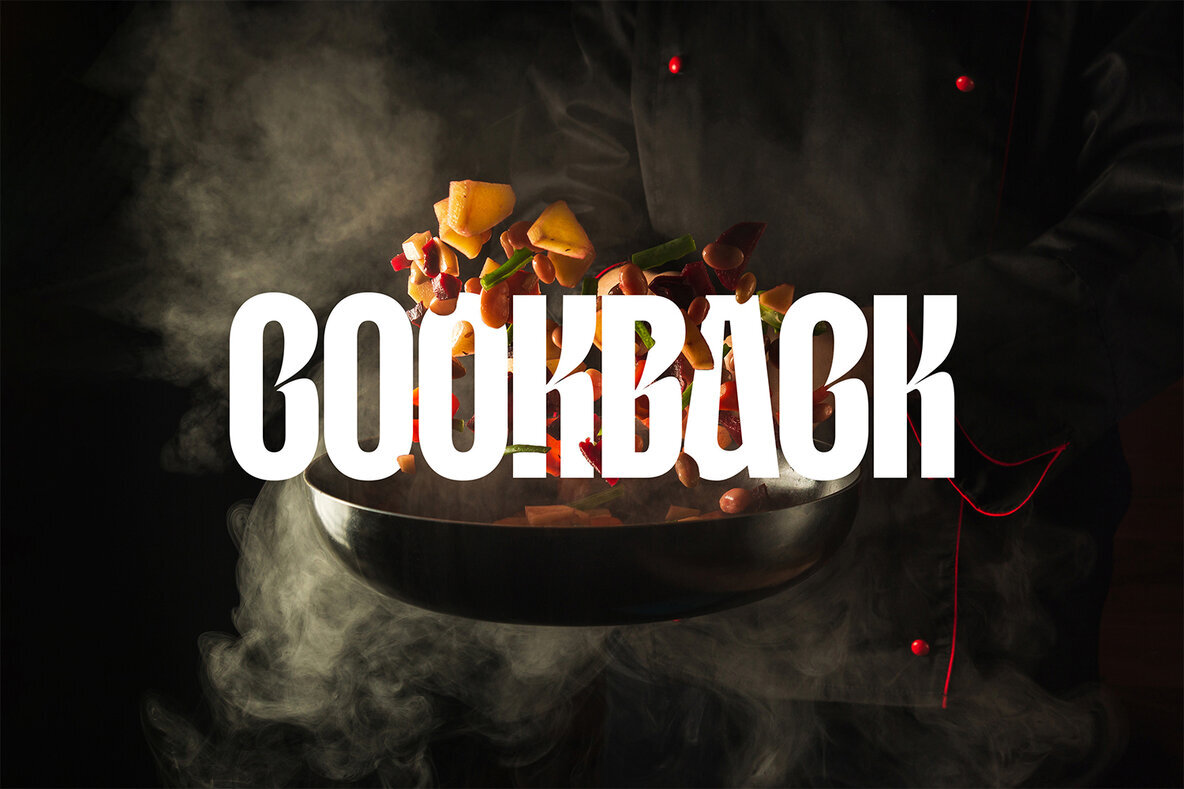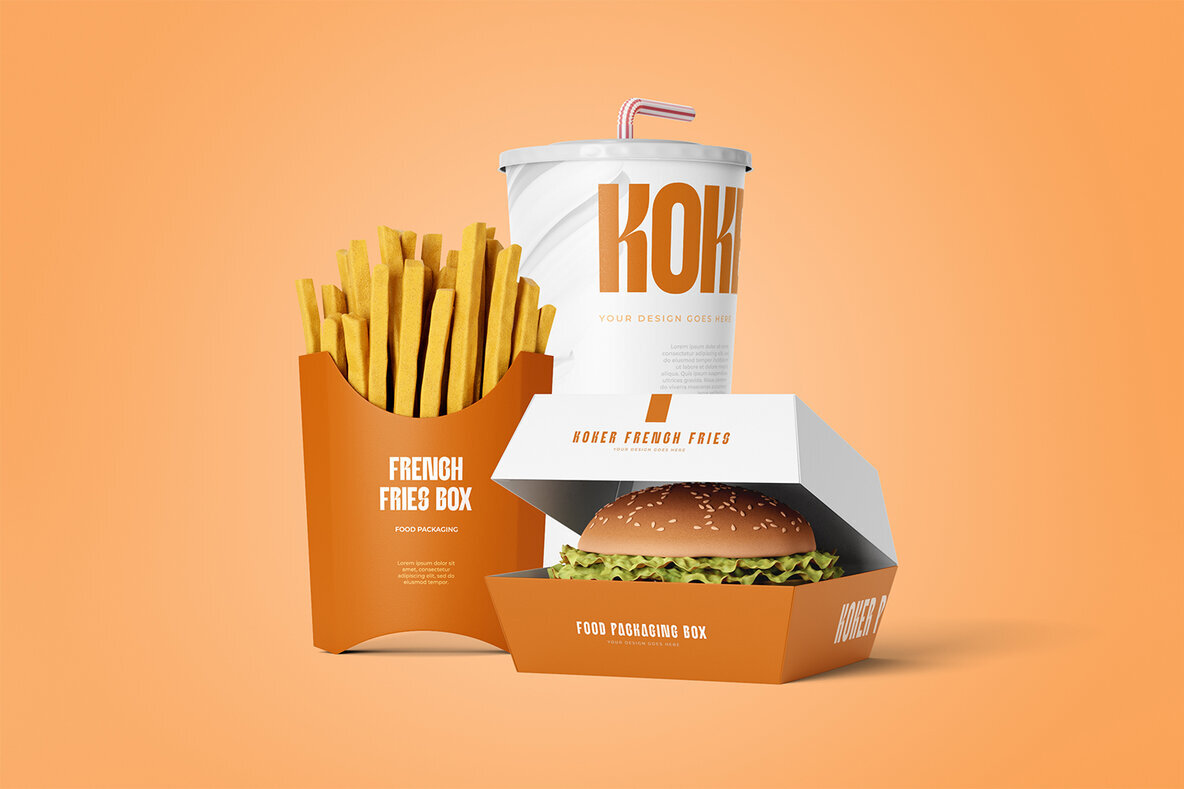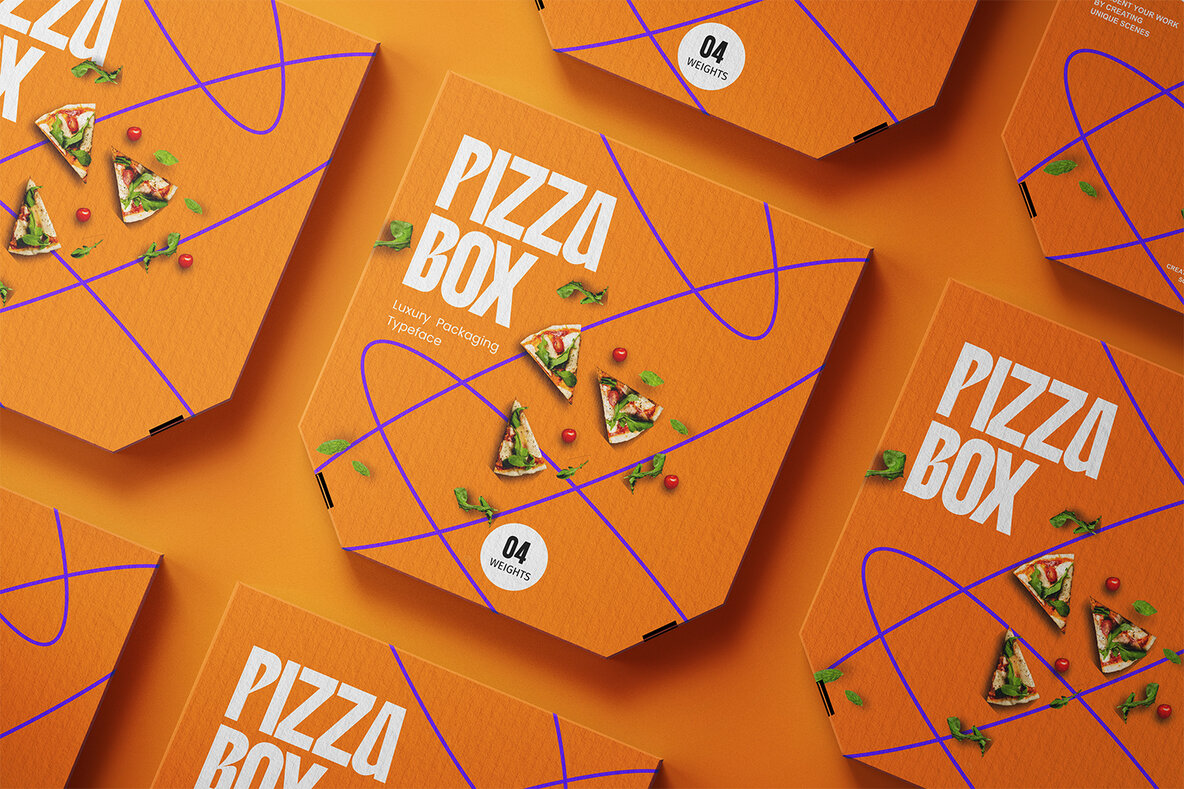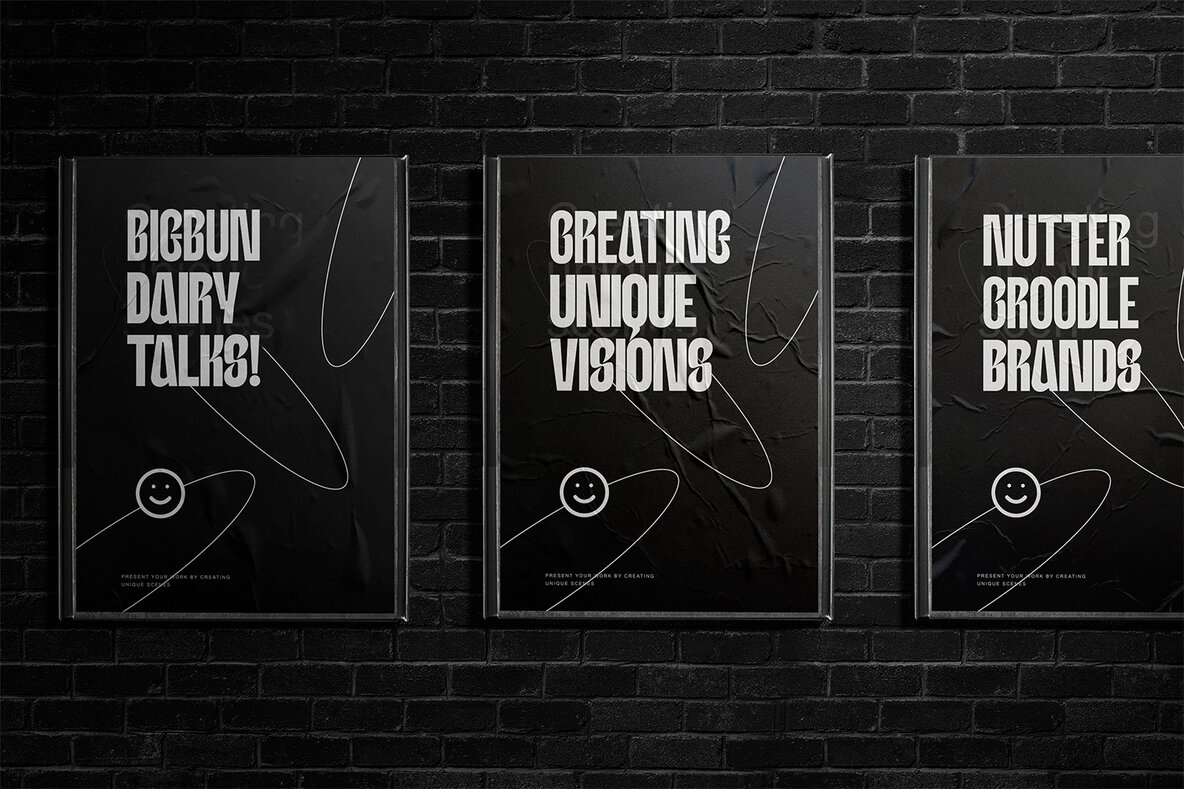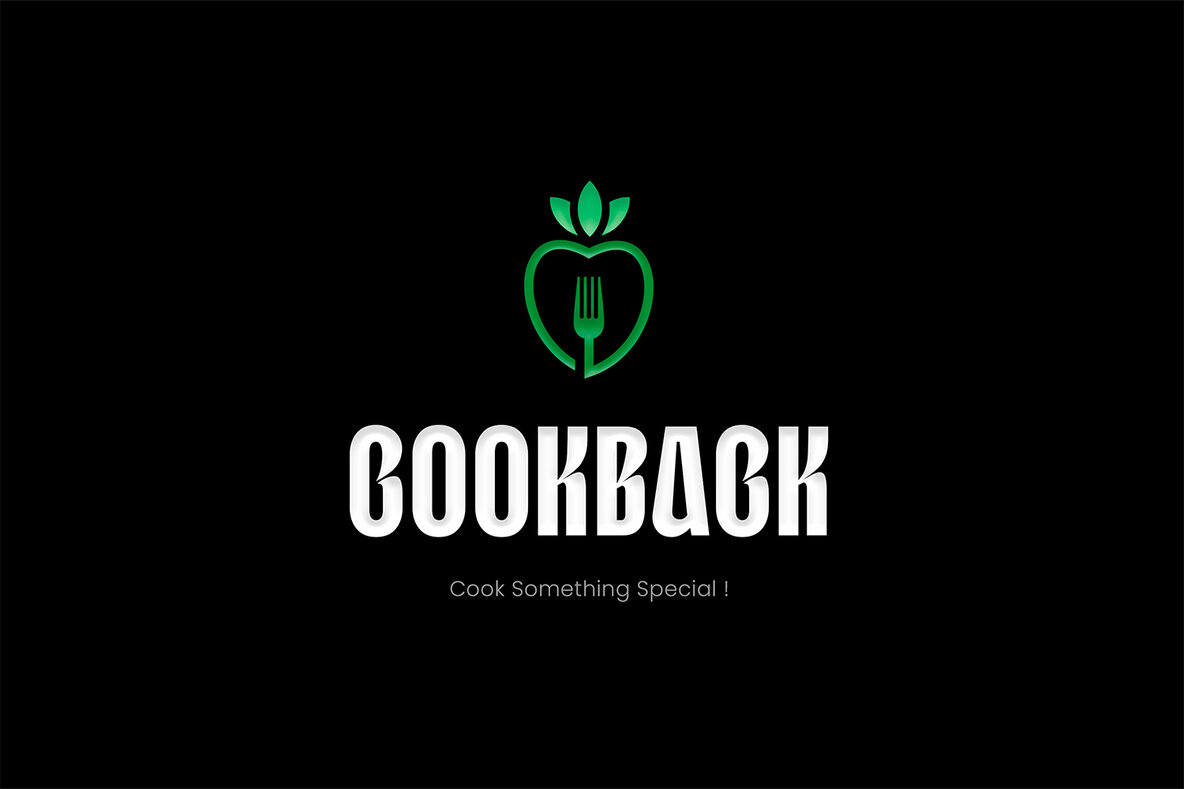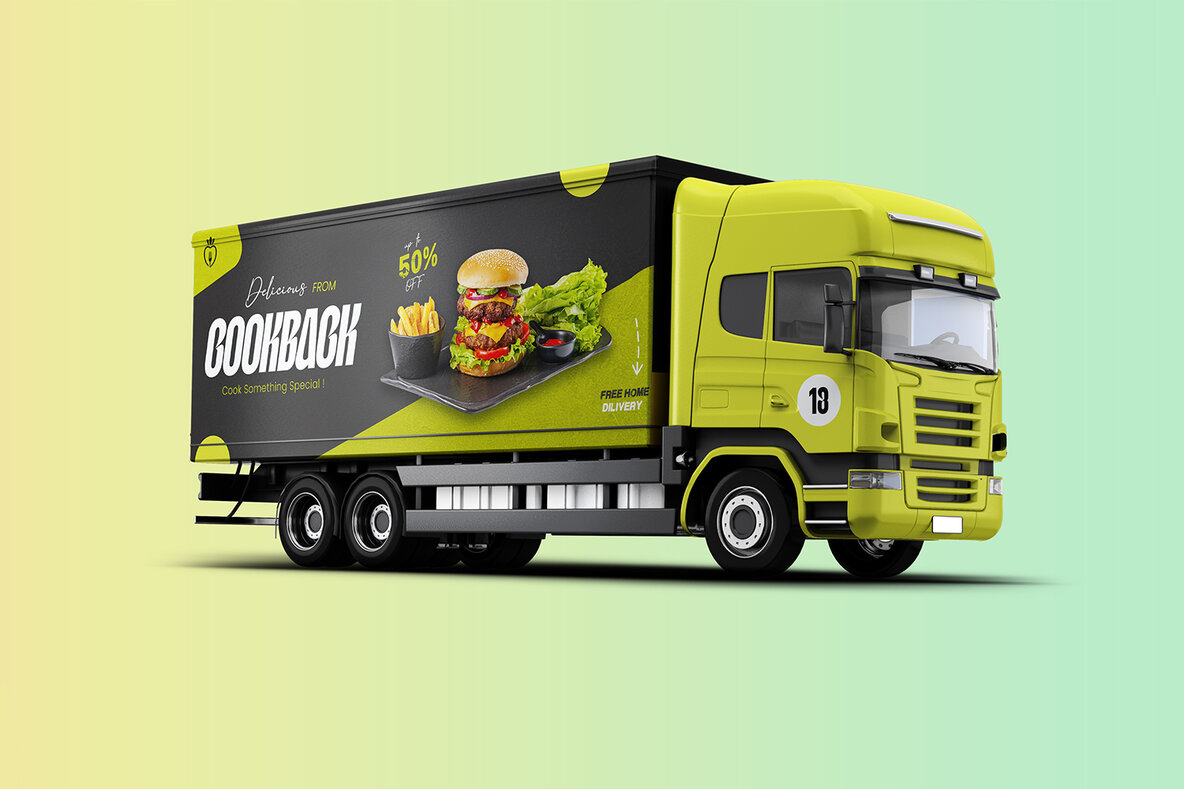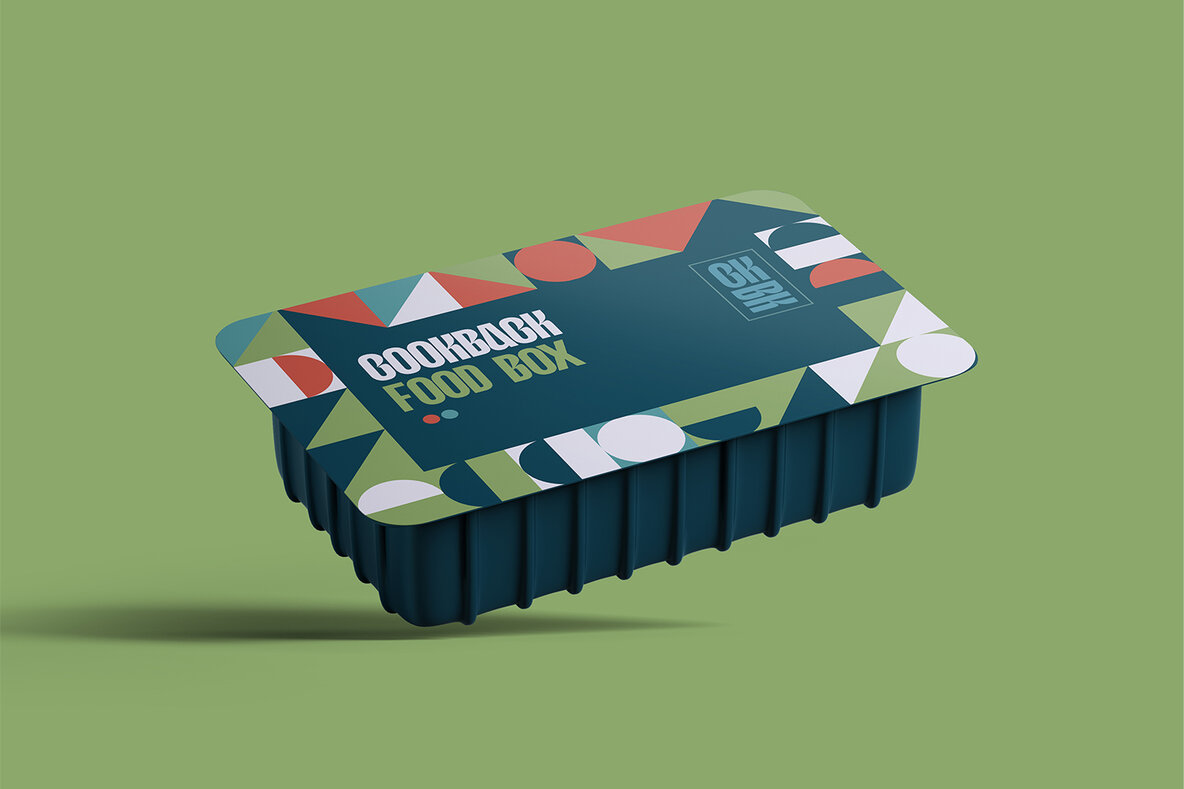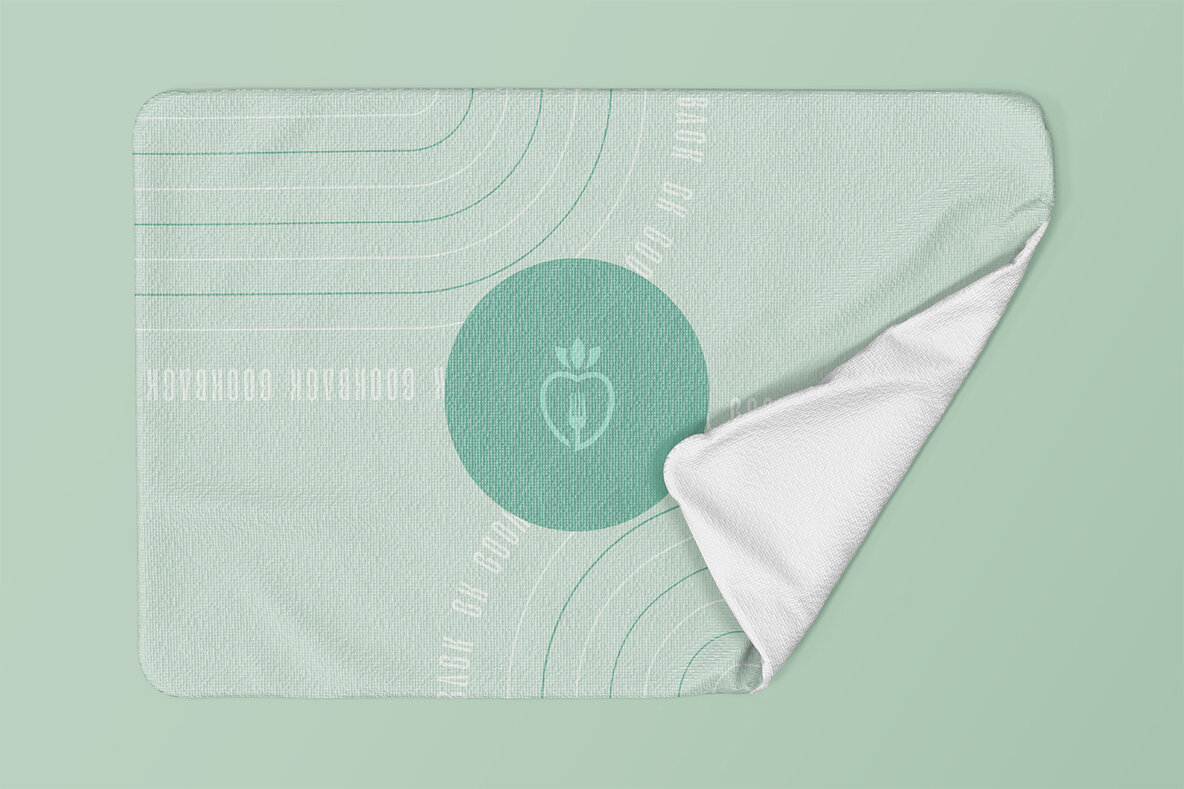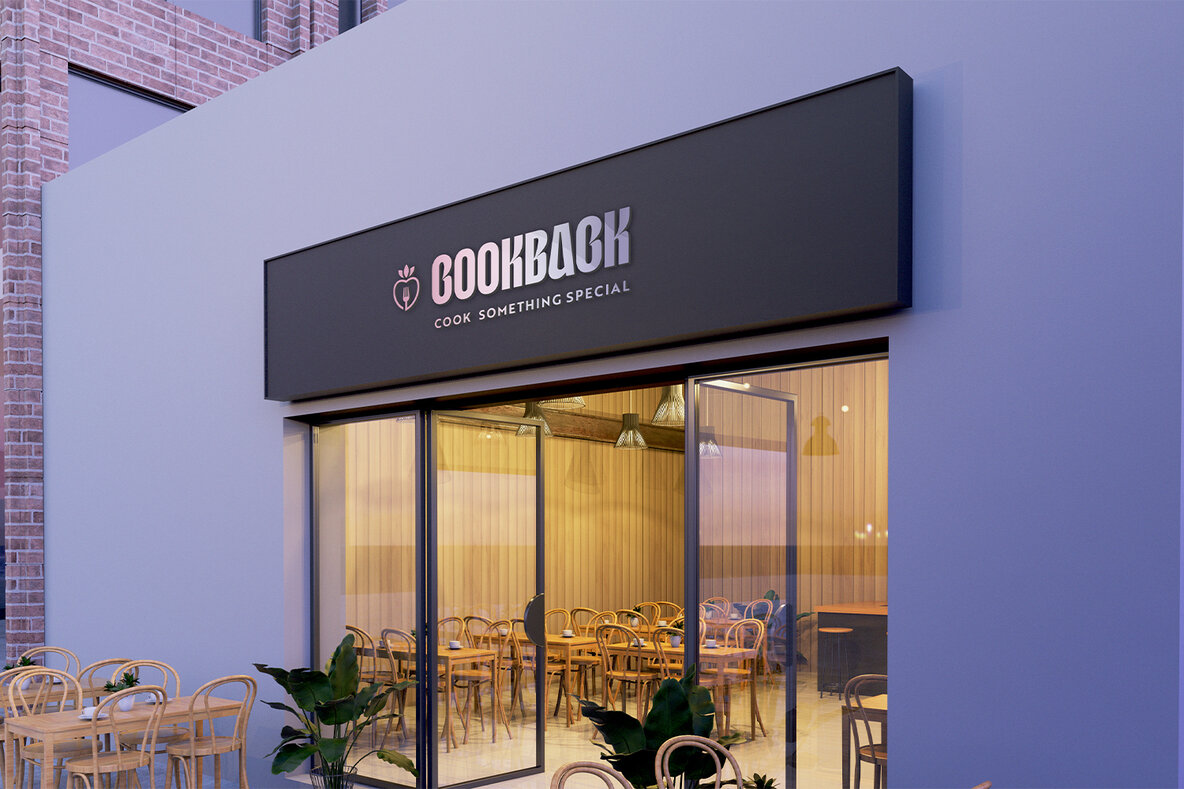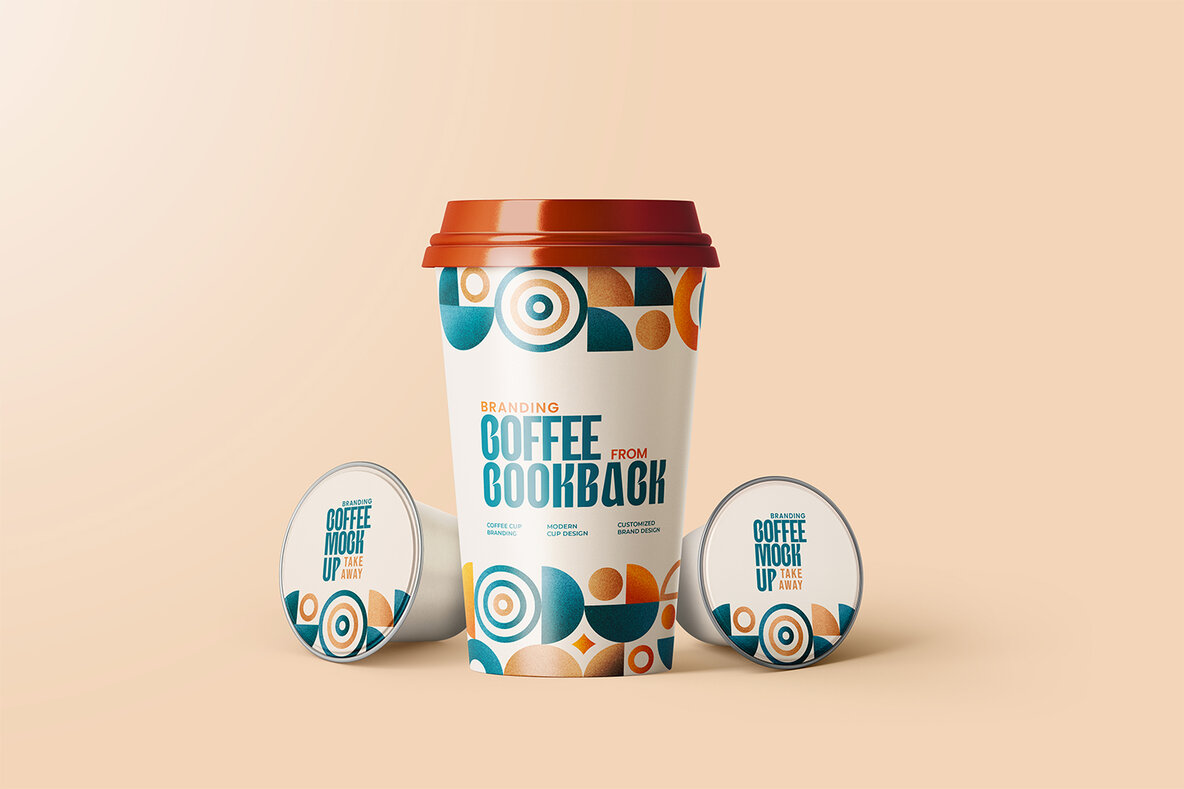
Krick Font
Meet Krick Display, a cutting-edge typeface that will elevate your brand to the next level. From logos to headlines, digital ads to posters, this font is meticulously crafted to catch the eye of your audience. We're not just talking about the bold and striking weights- each detail of the Krick Typeface has been thoughtfully created with mathematical precision. Trust us, this font is worth the investment. It's designed for the long haul, with four distinct weights: Regular, Medium, SemiBold, and Bold. Don't settle for a mediocre font- choose Krick Display for a truly professional look.